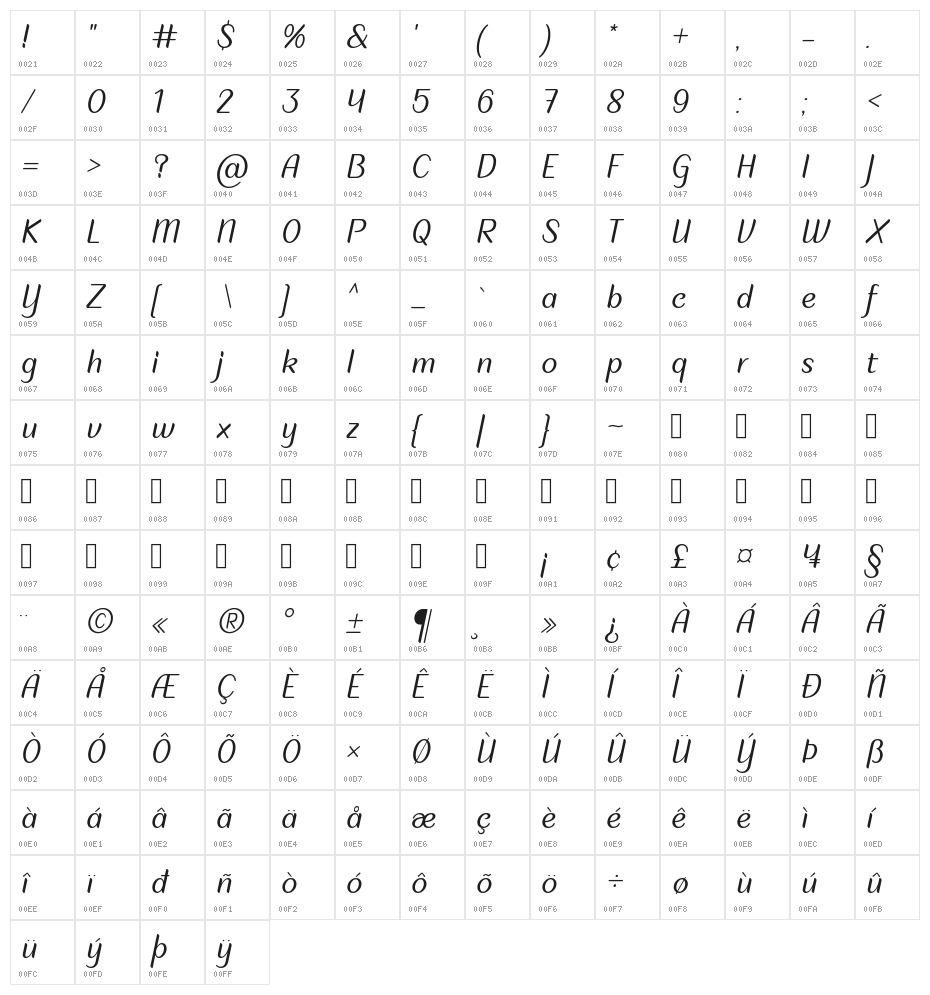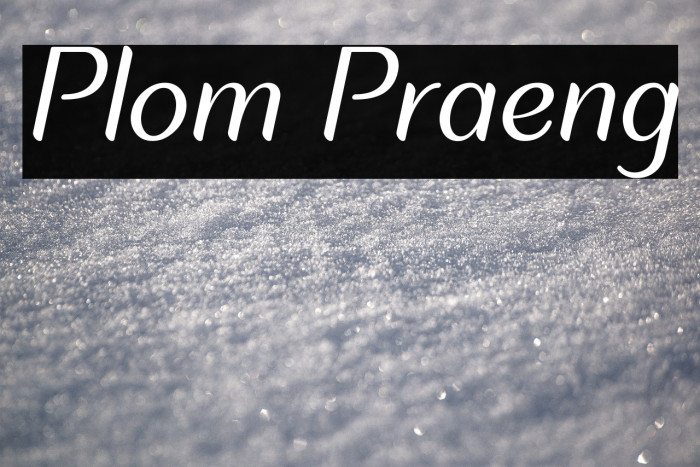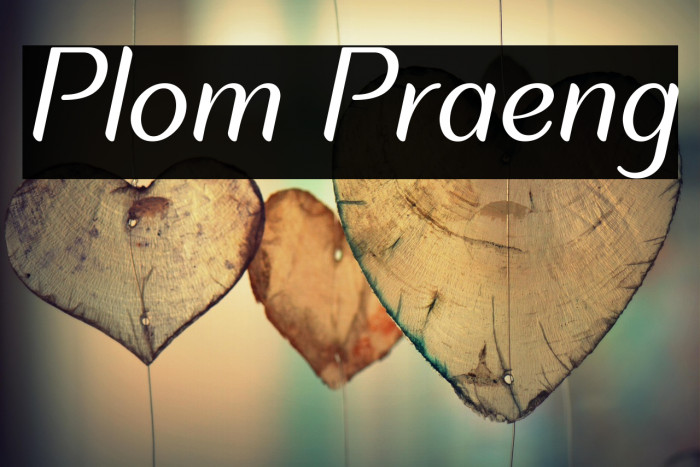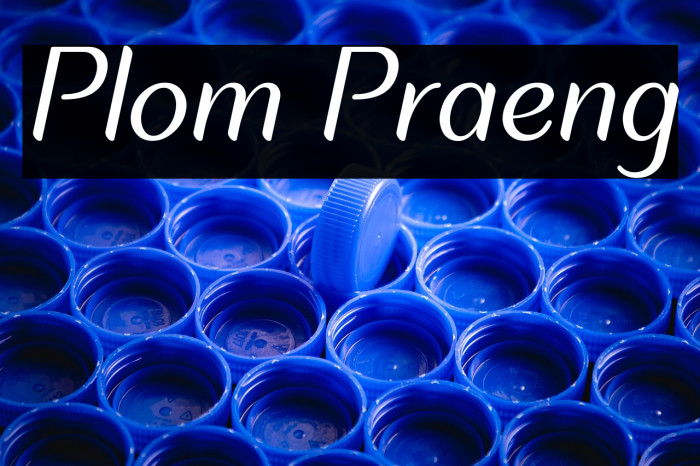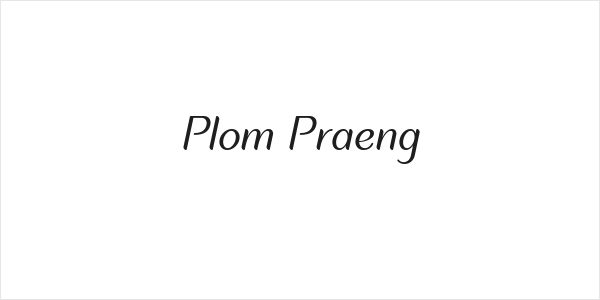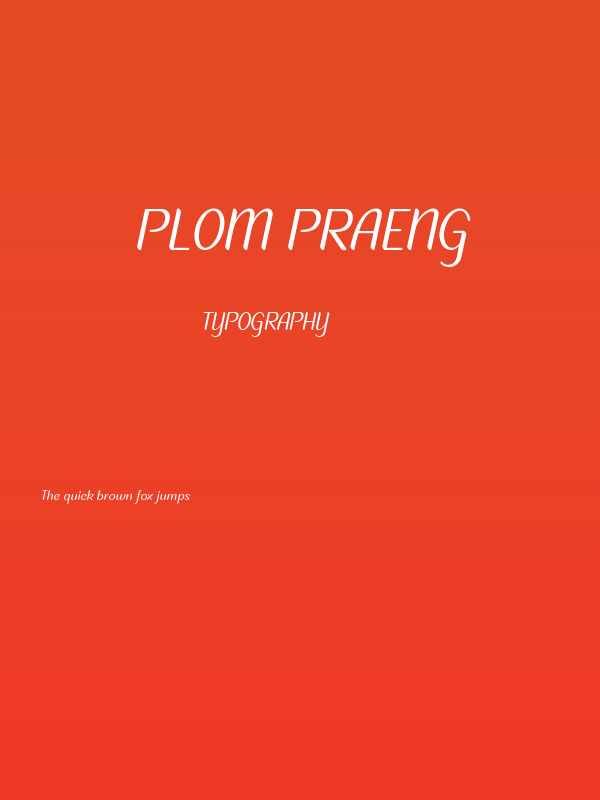
Plom Praeng Font
Plom Praeng Description
This font features a smooth, flowing script style with a modern touch. The characters are slightly slanted, giving it an elegant and dynamic appearance. The uppercase letters are tall and slender, while the lowercase letters maintain a consistent flow, enhancing readability. The numerals are well-proportioned, and the special characters blend seamlessly with the overall design. This font's clean lines and subtle curves make it versatile for various design applications.
| Proposed Projects | Ideal for wedding invitations, greeting cards, branding, and elegant packaging designs. |